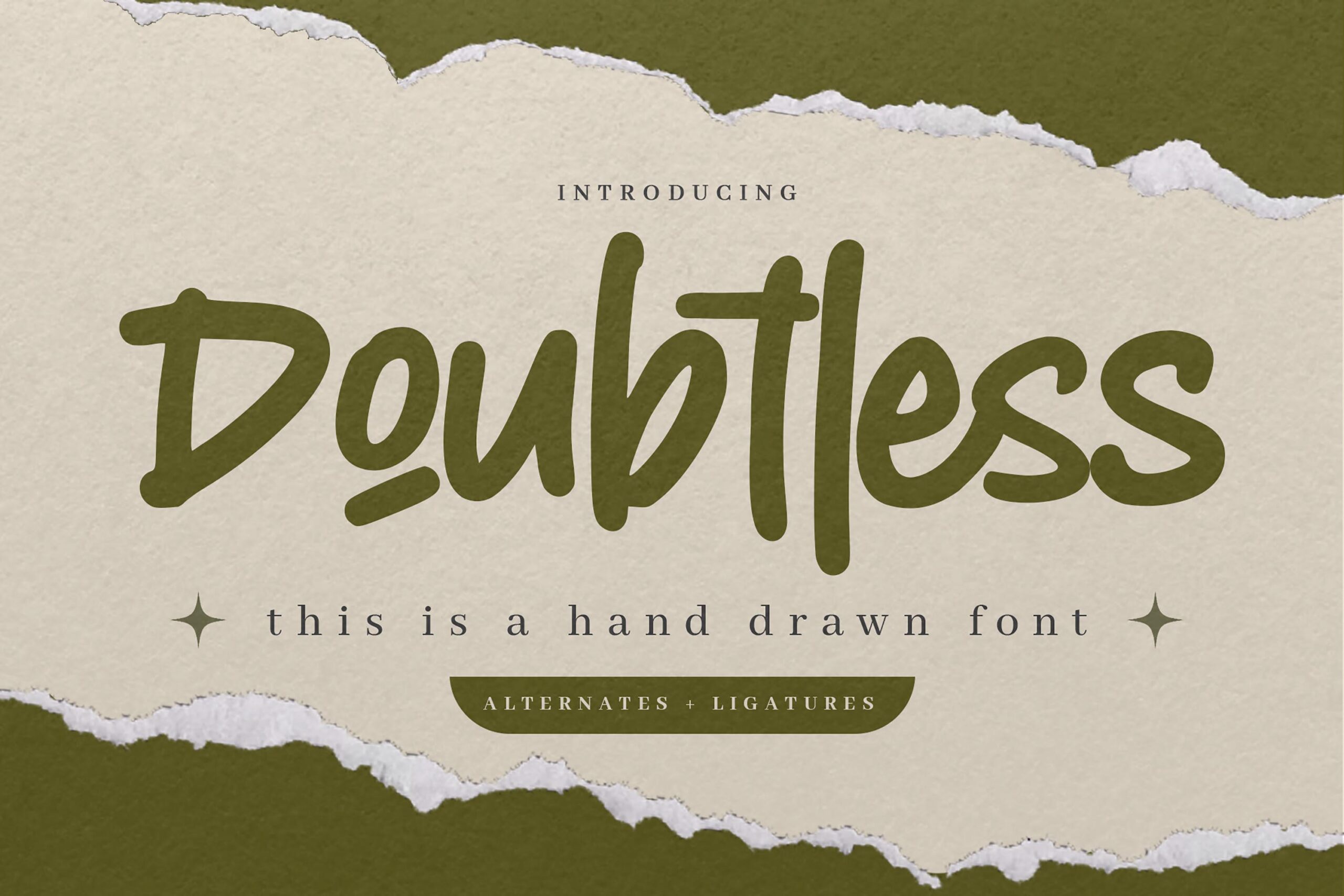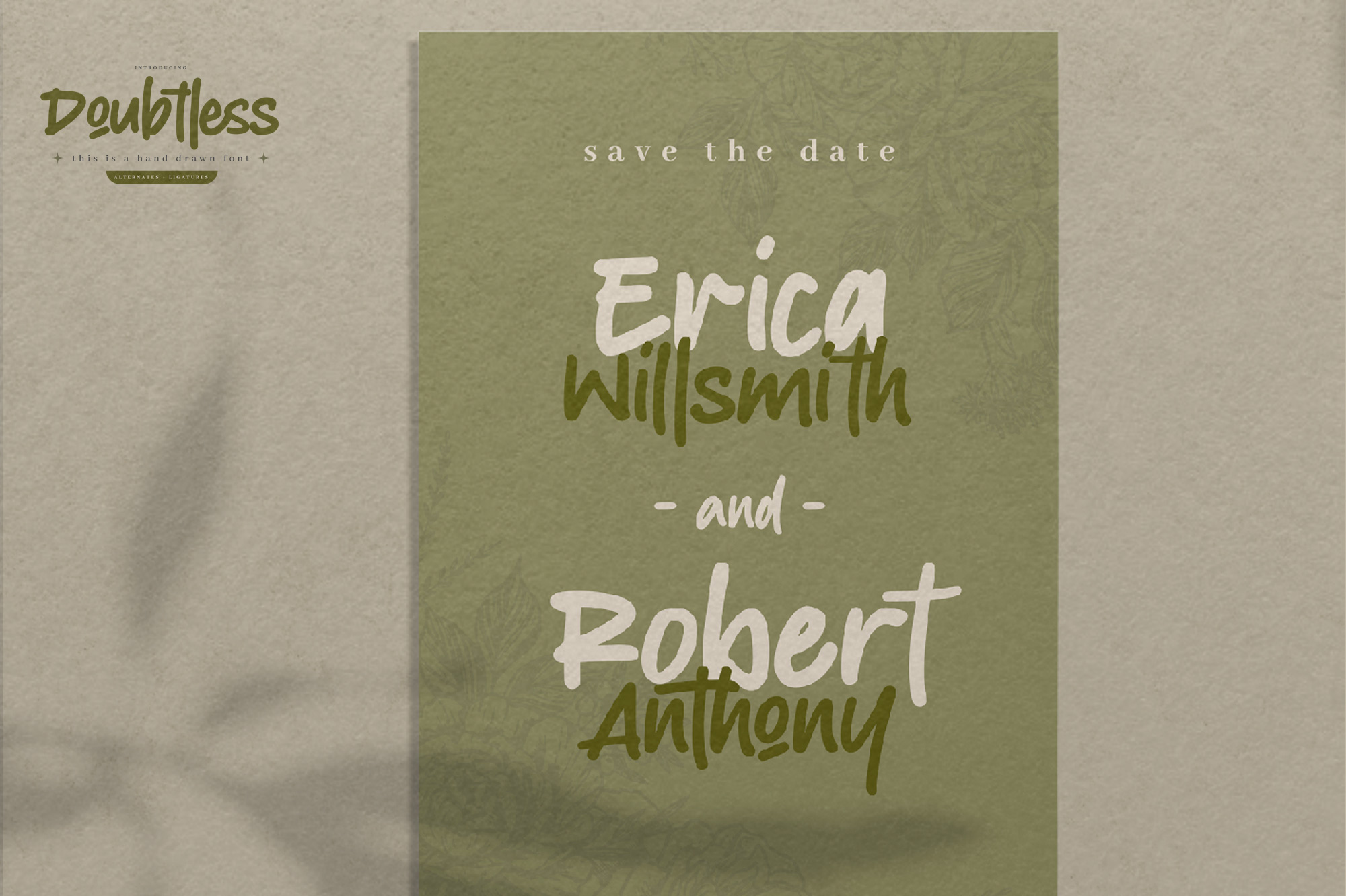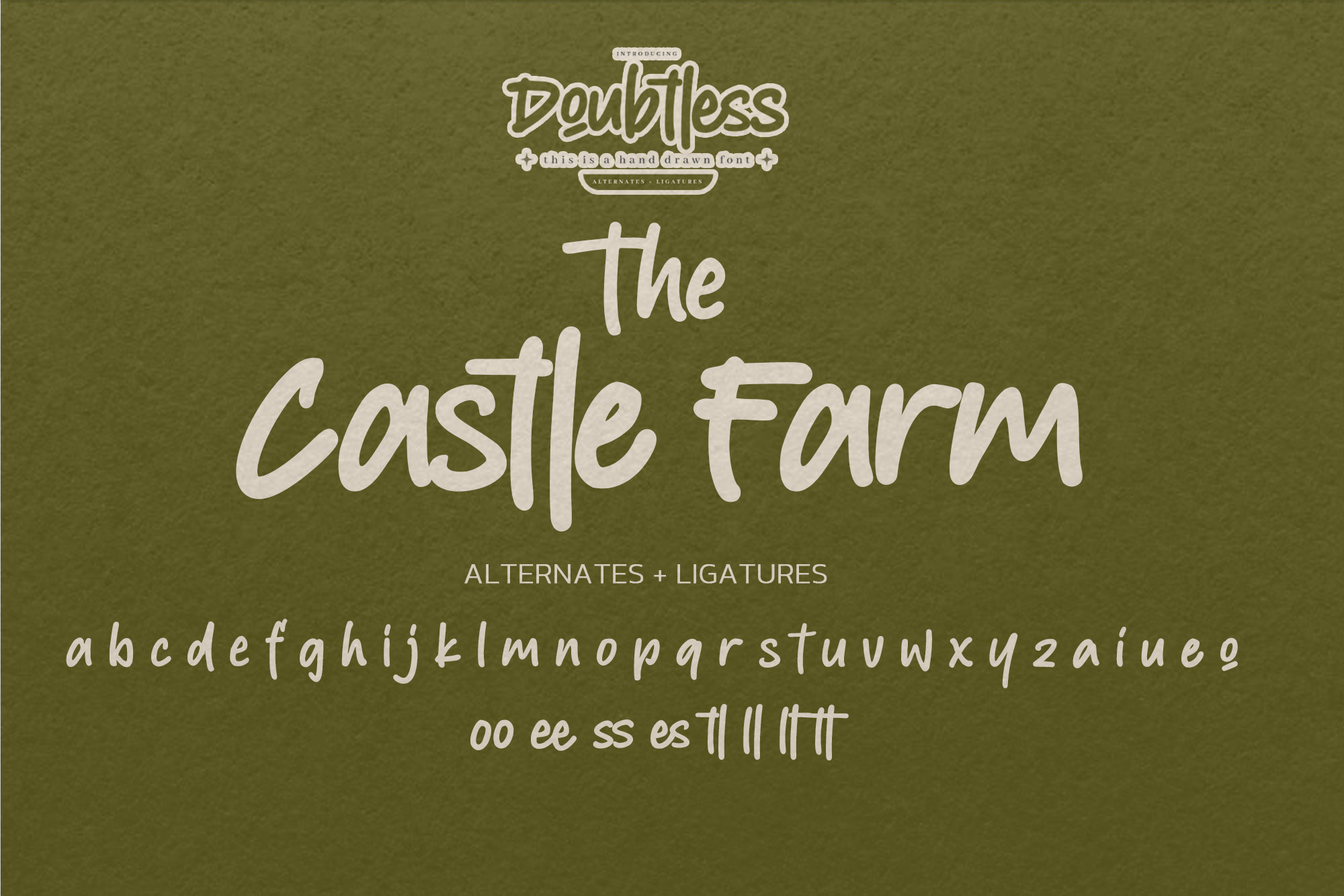
Hello Everyone, introduce our new product Font Doubtless – It is Hand Drawn Font , modern style and dramatic movement that is written casually and quickly.
The best for labels, poster, project designs look modern, authentic and fun. It’s perfect for labels, quotes, posters, DIY projects, branding, packaging, greeting cards, websites, photography overlays, signs, scrapbooking, tags and so much more! That is why Doubtless has a textured, and unique characteristic more natural look. You can activate 8 Ligatures and 31 Alternate glyphs OpenType panel.